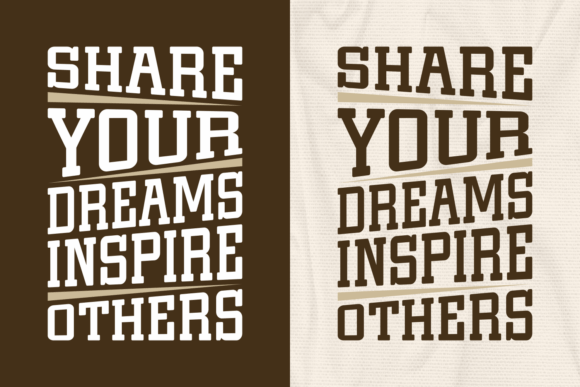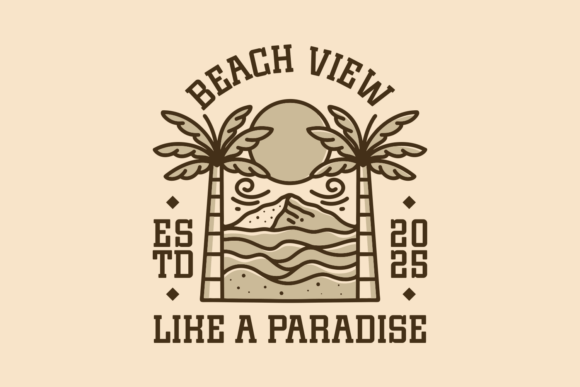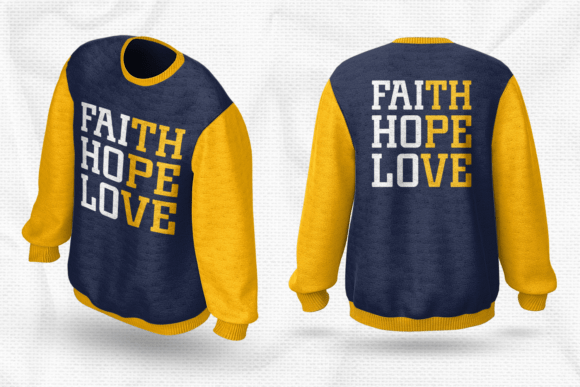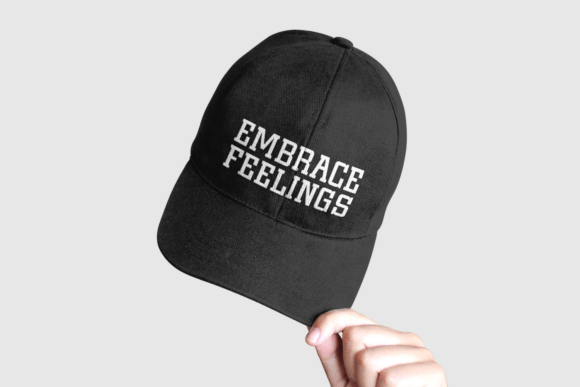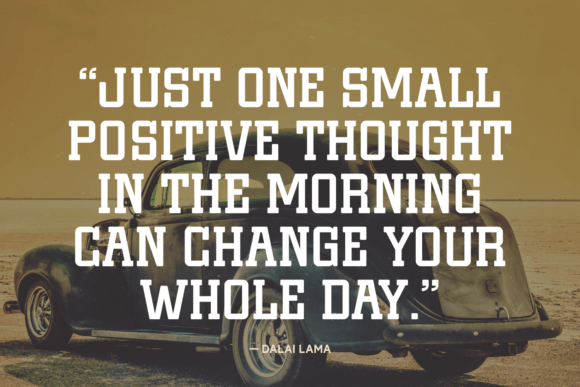
Introducing Double Touch: The Ultimate Slab Serif Font for Designers and Crafters
Are you looking for a font that can add a touch of vintage charm to your designs? Look no further than Double Touch, a Slab Serif font that is perfect for designers and crafters alike. With its thick contours and robust design, Double Touch is ideal for a wide range of applications, from apparel branding and book cover illustrations to logotypes, magazine pages, and packaging designs.
The Distinctive Characteristics of Double Touch
Double Touch boasts a unique and distinctive style that is sure to make your designs stand out. Its thick contours are accentuated to create a robust design that is both clean and elegant. The font’s Slab Serif style gives it a classic and timeless look that is perfect for creating a sense of nostalgia and authenticity in your designs.
Perfect for Apparel Branding and Book Cover Illustrations
Double Touch is particularly well-suited for apparel branding and book cover illustrations. Its bold and eye-catching design makes it perfect for creating striking logos and typography that will grab the attention of your audience. Whether you’re designing a t-shirt, a book cover, or a greeting card, Double Touch is sure to make your design look professional and visually appealing.
Elevate Your Designs with Double Touch
Double Touch is more than just a font – it’s a design solution that can elevate the aesthetic of any book, card, or packaging design. Its clean and classic style makes it easy to pair with other fonts and design elements, allowing you to create a unique and cohesive look that reflects your brand’s identity.
Multilingual Support for Global Designers
As a global designer or crafter, you need a font that can keep up with your multilingual design needs. Double Touch offers multilingual support, making it a versatile accessory in the global world of design. Whether you’re designing for a local market or a global audience, Double Touch has got you covered.
Trending Typography for Modern Designers
Double Touch is a font that is on-trend with modern typography. Its Slab Serif style is a popular choice among designers and crafters, and its bold and eye-catching design makes it perfect for creating striking typography that will grab the attention of your audience.
Empower Your Brand’s Unique Identity with Double Touch
Your brand’s unique identity is what sets you apart from the competition. Double Touch can help you empower that identity with its bold and eye-catching design. Whether you’re designing a logo, a brochure, or a website, Double Touch is sure to make your design look professional and visually appealing.
Use Double Touch for a Wide Range of Design Applications
Double Touch is a versatile font that can be used for a wide range of design applications, including:
- Apparel branding: Create striking logos and typography for t-shirts, hoodies, and other apparel items.
- Book cover illustrations: Add a touch of vintage charm to your book covers with Double Touch.
- Logotypes: Create bold and eye-catching logotypes that will grab the attention of your audience.
- Magazine pages: Use Double Touch to add a touch of elegance and sophistication to your magazine pages.
- Packaging designs: Create visually appealing packaging designs that will stand out on store shelves.
- Greeting cards: Add a touch of personality and style to your greeting cards with Double Touch.
In conclusion, Double Touch is a Slab Serif font that is perfect for designers and crafters who want to add a touch of vintage charm to their designs. Its bold and eye-catching design makes it perfect for a wide range of applications, from apparel branding and book cover illustrations to logotypes, magazine pages, and packaging designs. With its multilingual support and trending typography, Double Touch is a versatile font that can empower your brand’s unique identity and take your designs to the next level.